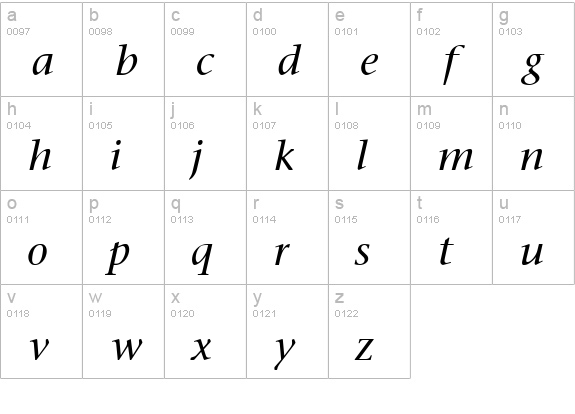
Fasse Italic Font Details
Fasse Italic is a distinctive, italic variant in the Fasse typeface family \xE2\x80\x94 well suited to design and typography projects.
Fasse Italic font is a sleek and modern typeface that exudes elegance and sophistication. Its slanted design adds a touch of flair to any project, making it perfect for branding, editorial design, and more. The smooth curves and clean lines of Fasse Italic create a sense of fluidity and movement, making it a versatile choice for both digital and print applications. What sets Fasse Italic font apart is not only its stylish appearance but also its accessibility - it is available for free download at FontsMarket.com. This means that you can easily incorporate this beautiful typeface into your designs without any cost, making it a valuable resource for designers of all levels. Whether you're looking to add a touch of class to your next project or simply want to experiment with a new font style, Fasse Italic is the perfect choice. Download it for free today and elevate your designs with this stunning typeface.